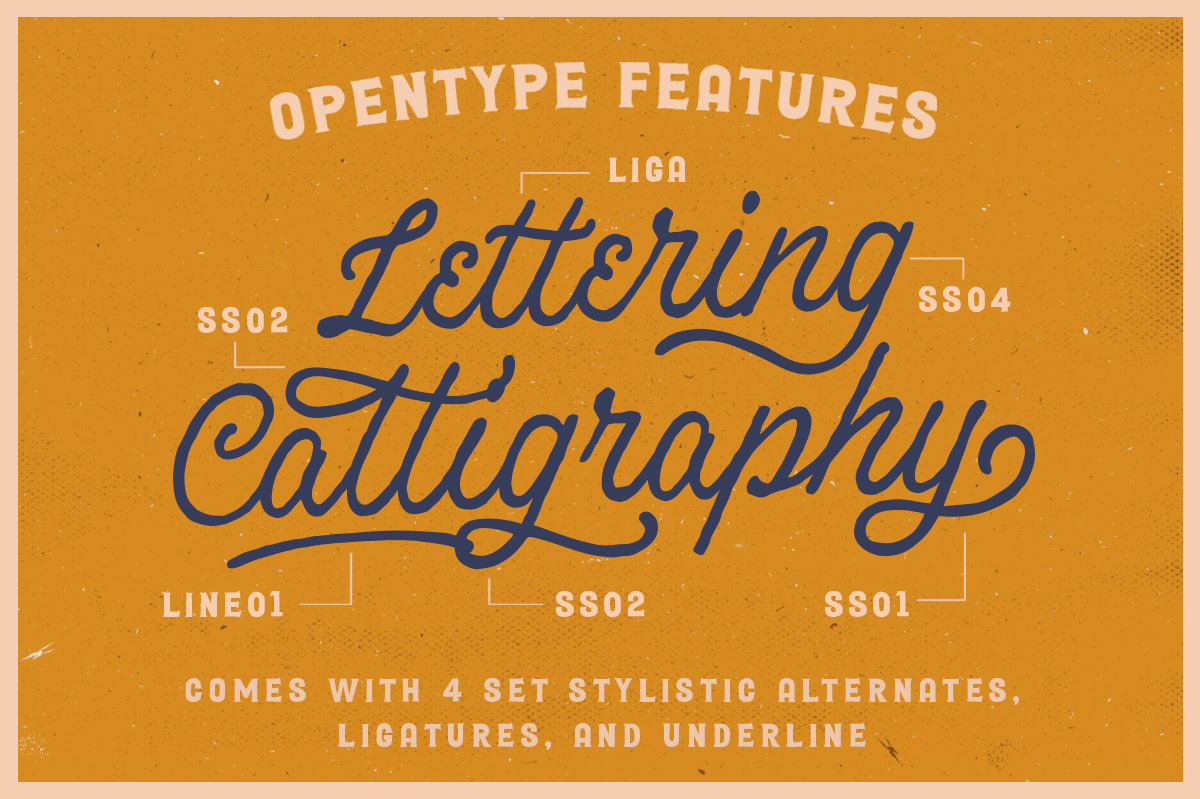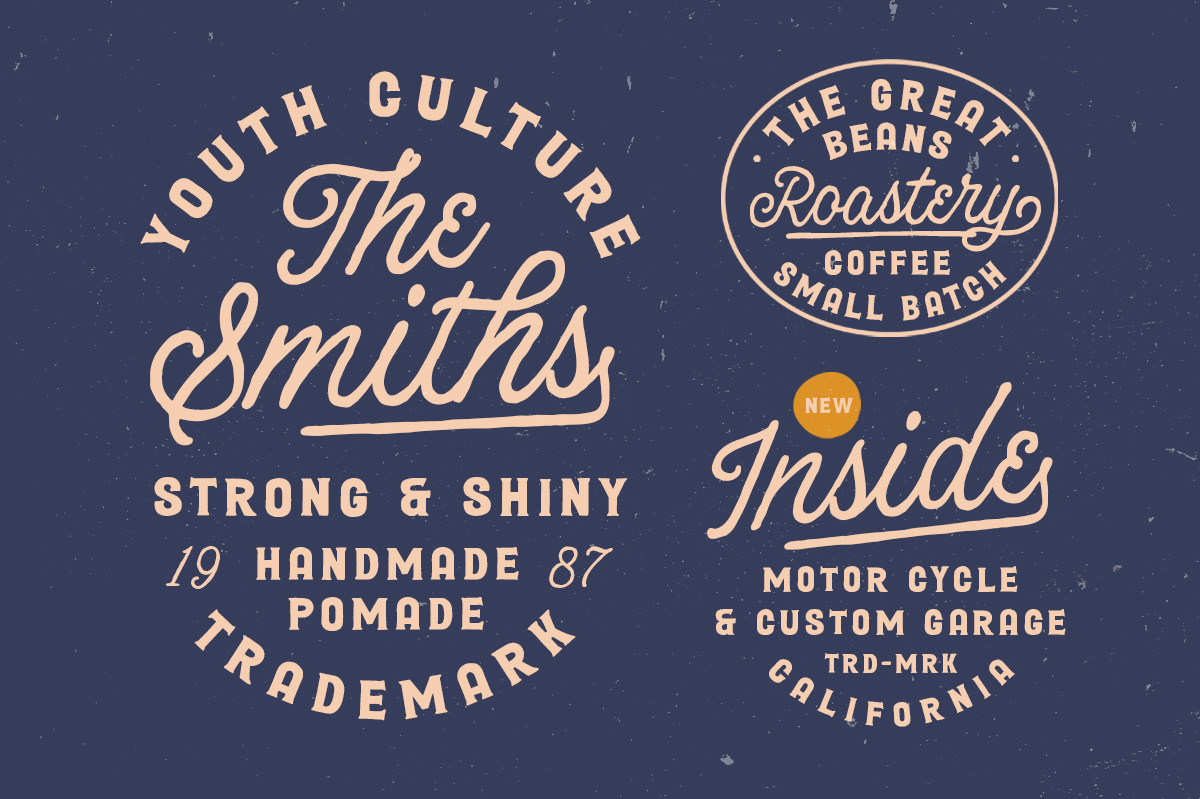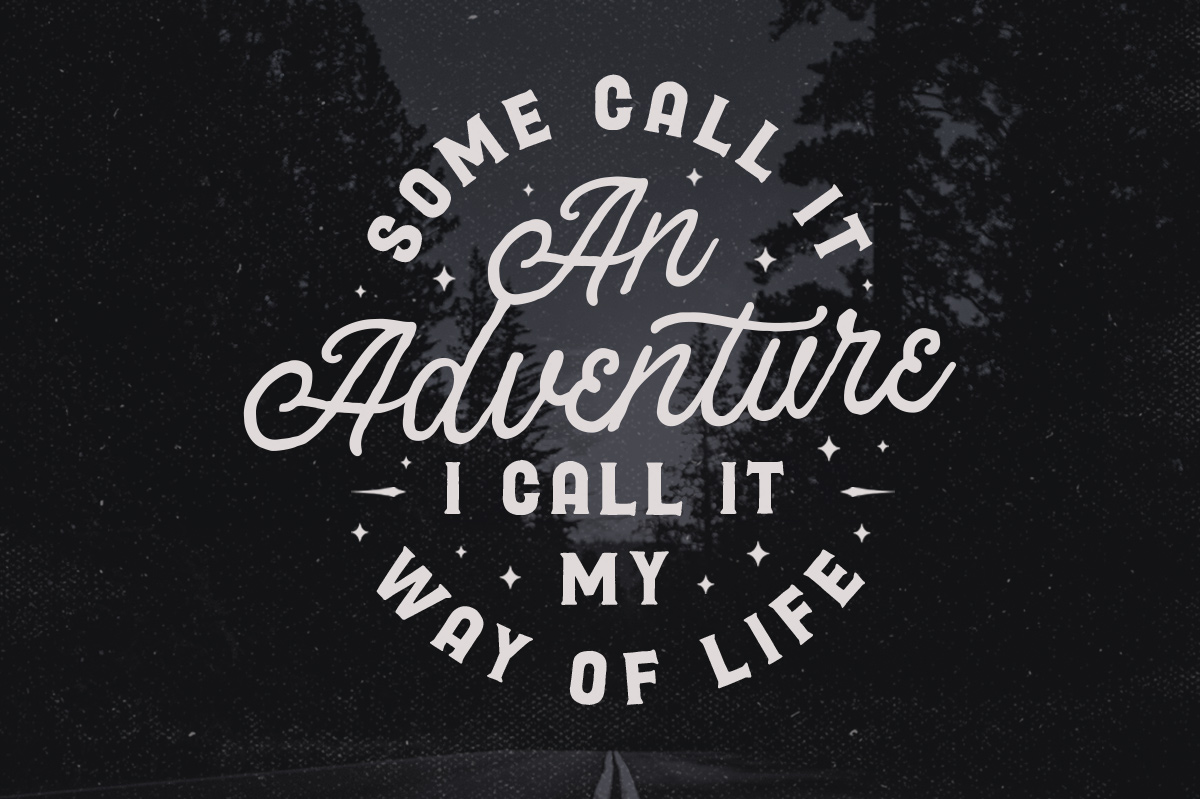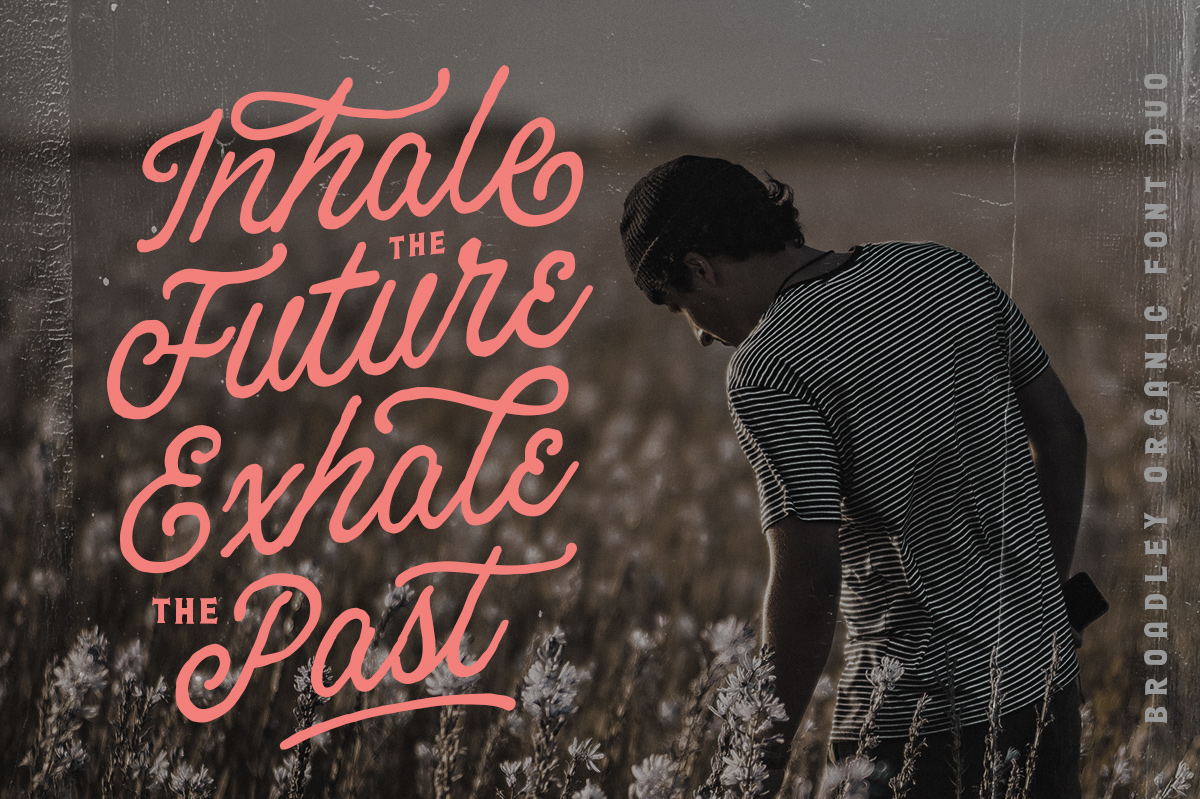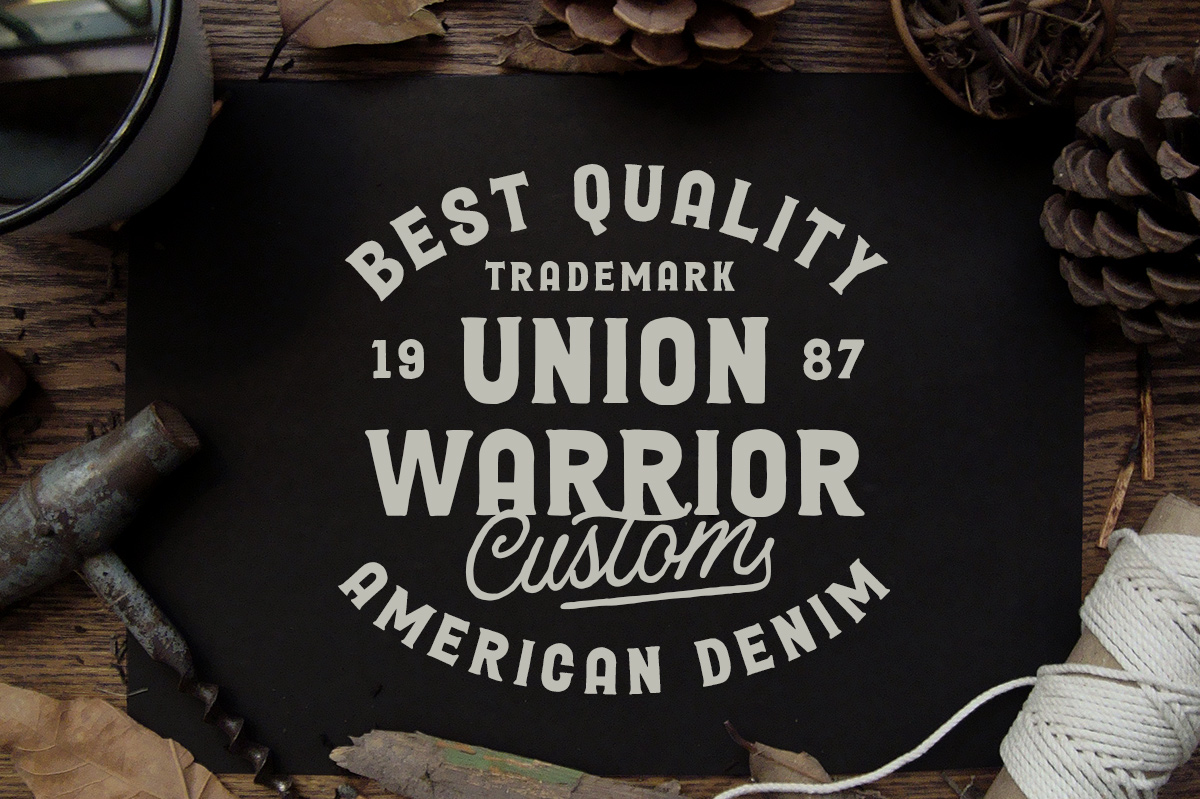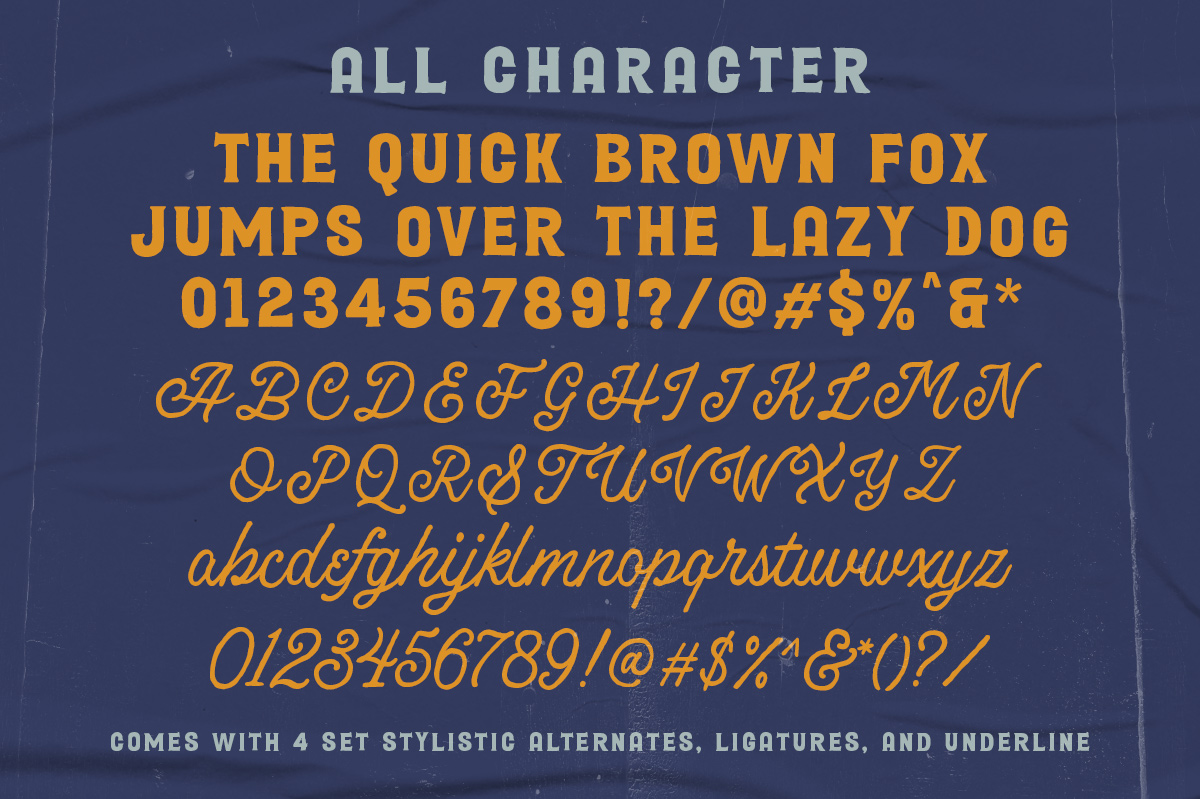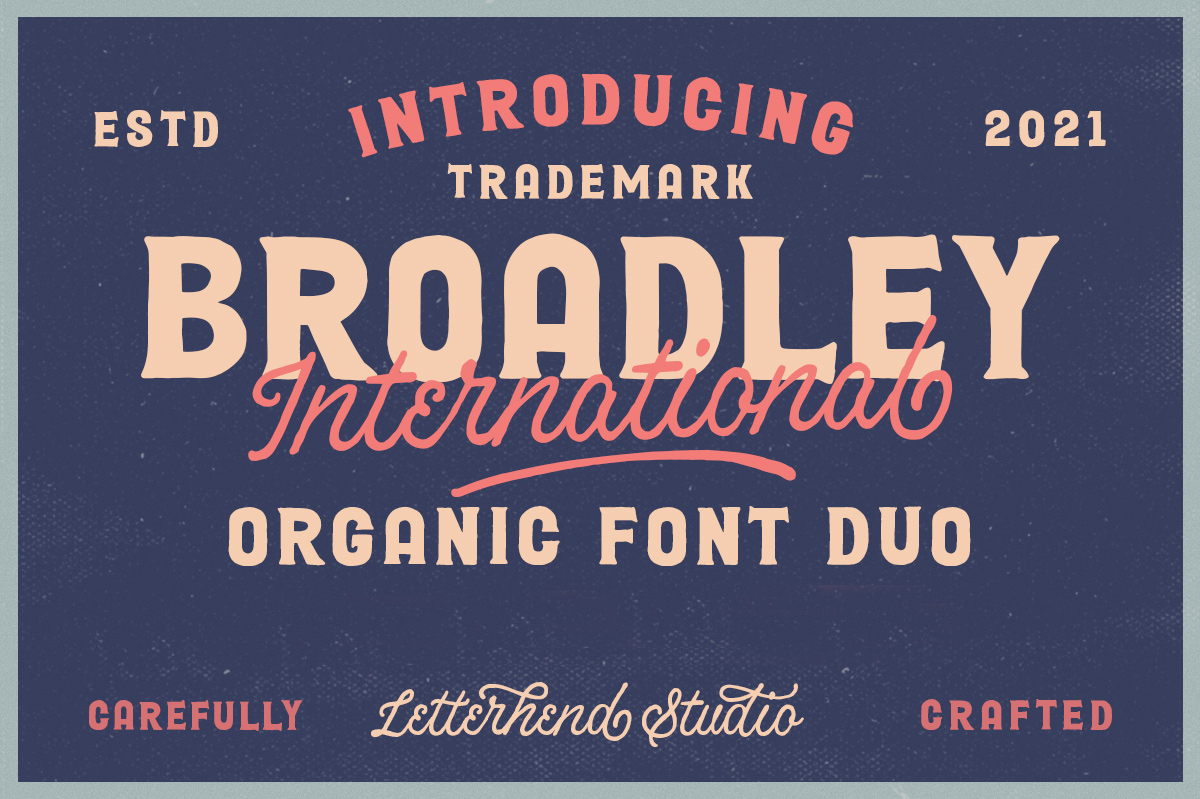
Introducing, Broadley, a pair of hand drawn bold serif and script with a touch of vintage look and feel. This type of font perfectly made to be applied especially in logo, headline, signage and the other various formal forms such as invitations, labels, logos, magazines, books, greeting / wedding cards, packaging, fashion, make up, stationery, novels, labels or any type of advertising purpose.
Features :
- uppercase & lowercase - numbers and punctuation - multilingual - alternates / swashes and ligatures - PUA encoded